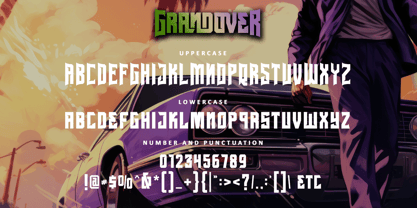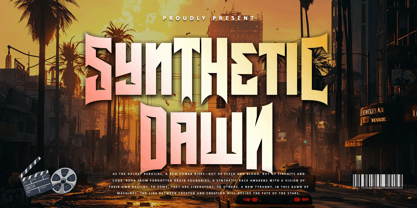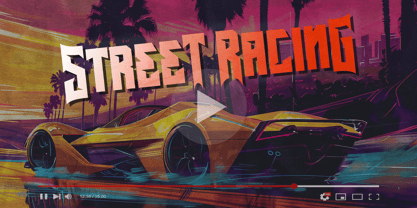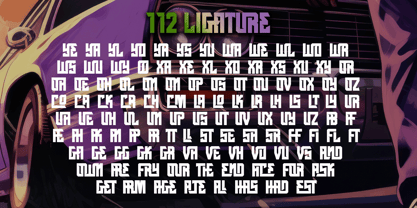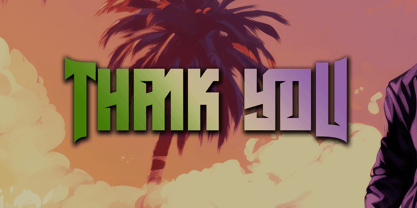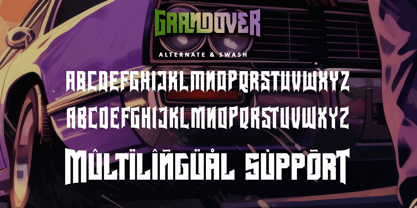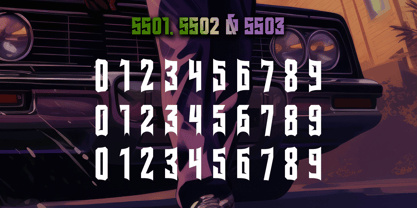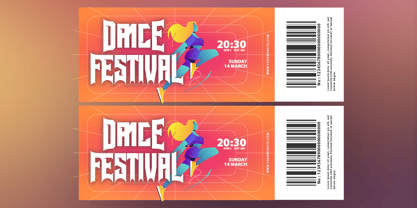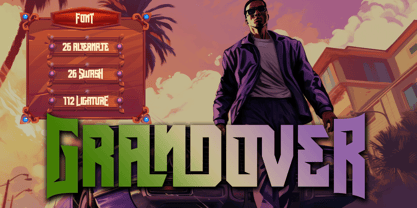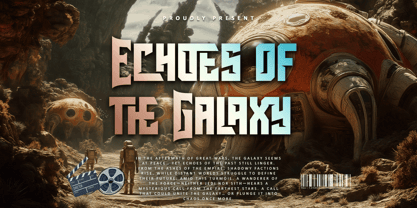
Grandover
Introducing Grandover, a bold, fearless display typeface forged with the spirit of rebellion, speed, and urban grit. With its sharp edges, futuristic strokes, and cinematic presence, Grandover is designed to dominate any scene, whether it’s neon-lit streets, cyberpunk posters, gaming titles, or adrenaline-fueled racing themes.
Packed with 26 Alternates, 26 Swashes, and an impressive 112 Ligatures, this font gives you endless flexibility to craft unique letter combinations and powerful typographic statements. Grandover isn’t just a font, it’s a revolution in letters. Turn your designs into bold visual experiences that command attention and leave a lasting mark.